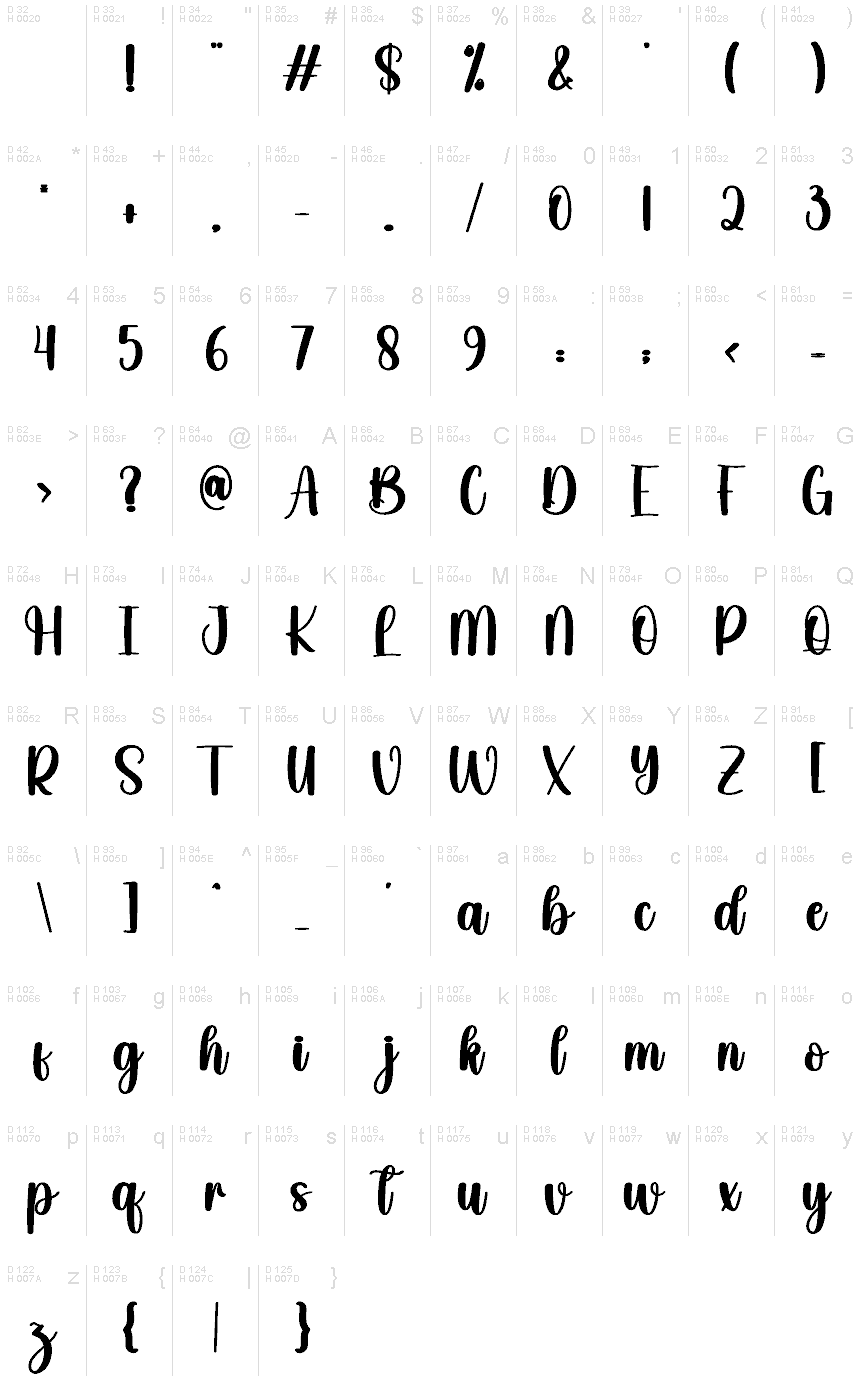
Shining
Shining font by Scratchones is a free calligraphy font written with a professional brush pen. With fluent, strong lines and an easily legible style, this beautiful typeface is ideal for all artistic designers looking to enhance their projects with its presence. It has expressive characters that feature coherent connections – perfect for size manipulation and even possible effect addition.
Shining’s elegance doesn’t overpower its versatility and it can be utilized for branding, packaging design, typography logotypes, social media posts (Instagram), magazine covers/titles, poster designs, invitations and branding stationery such as business cards or postcards.